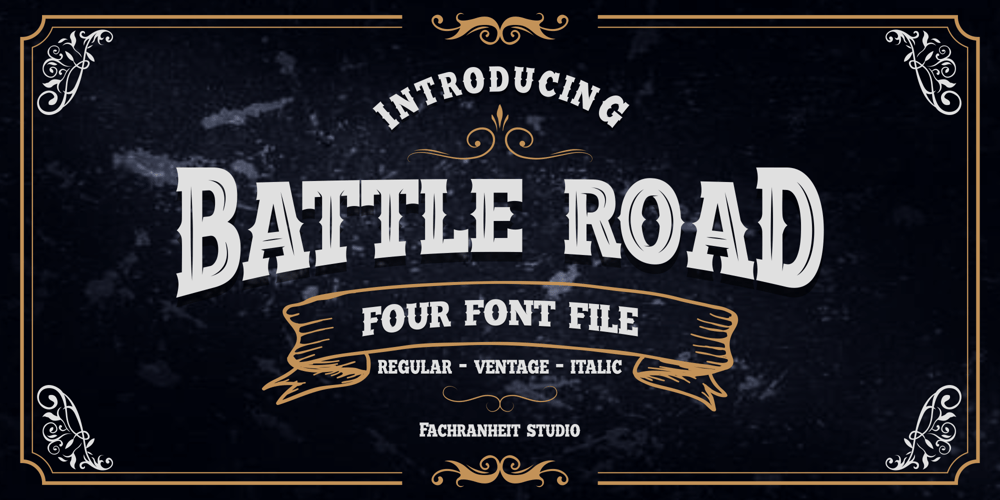
Battle Road Font Family was designed by Fachrul Rozi and published by Fachranheit. Battle Road contains 4 styles and family package options. The Battle Road is an old, vintage display typeface. It has regular characters and a ventage style. It can be used for logos, t-shirts, quotes, badge, branding, headers, labels, packaging and much more!This is what you’ll be get : Battle Road Regular.ttf Battle Road Italic.ttf Battle Road Ventage.ttf Battle Road Ventage Italic.ttf Features : Character Set A-Z Numerals & Punctuations (TrueType Standard) Accents (Multilingual characters) Above the description of this font, I hope you’re satisfied with what I have created. if there’s anyone who purchase and find some problem, don`t hesitate to using product support Thanks and enjoy designing.